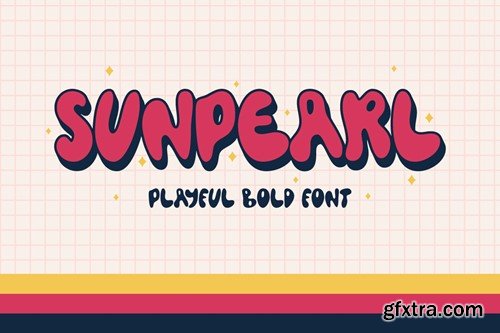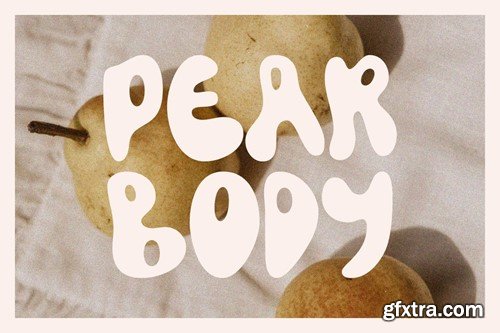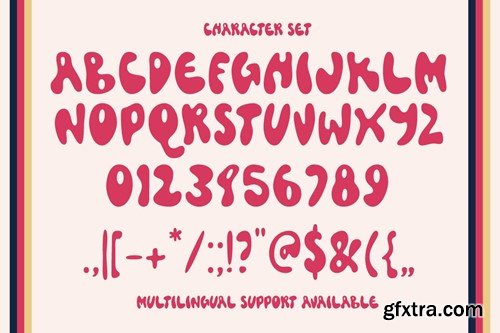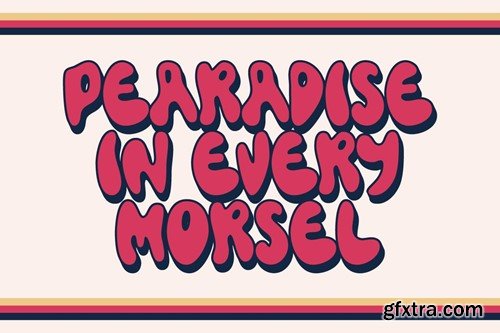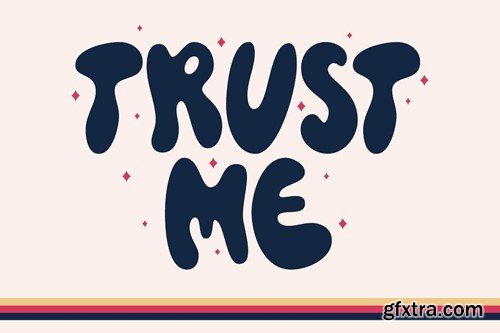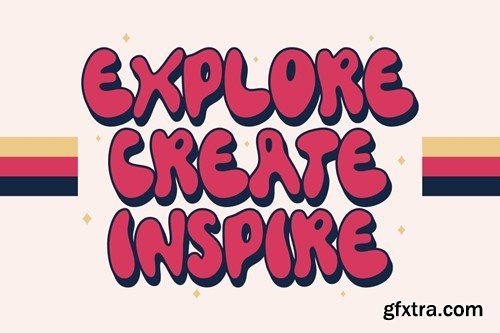
Sunpearl - 轻盈大胆字体 W887QRG
Sunpearl - Playful Bold Font
Sunpearl - Playful Bold Font Introducing Sunpearl. A bold, groovy font that's both fun and hand-drawn. Perfect for branding, logos, merchandise, and more, its lively strokes bring energy to any design. Experience the playful charm of Sunpearl as it adds a unique handcrafted vibe to your projects. Embrace its bold character for a vibrant and captivating appeal in your designs. Thanks!